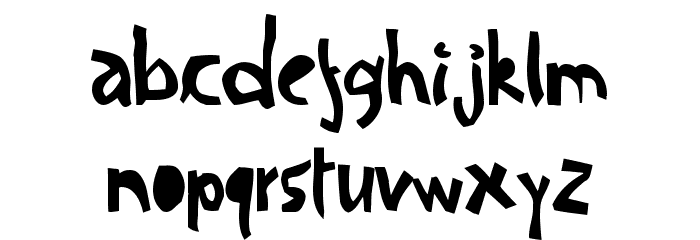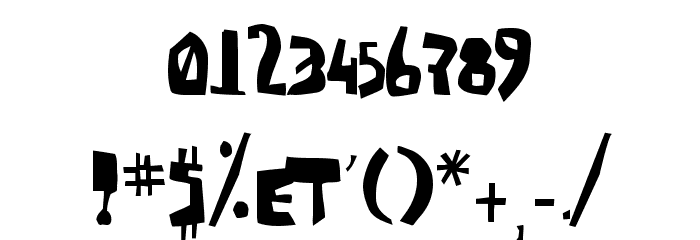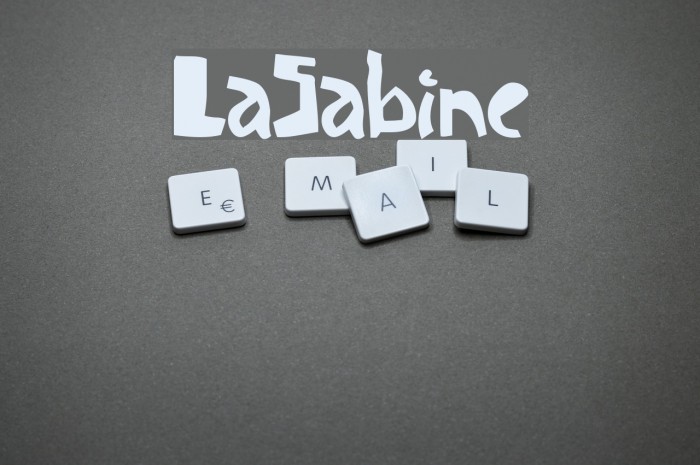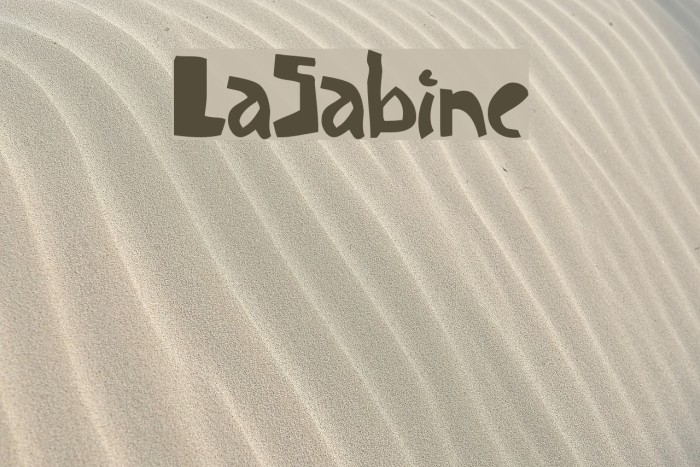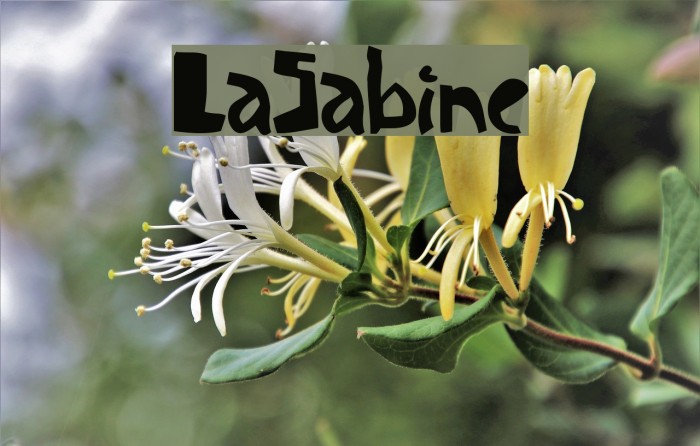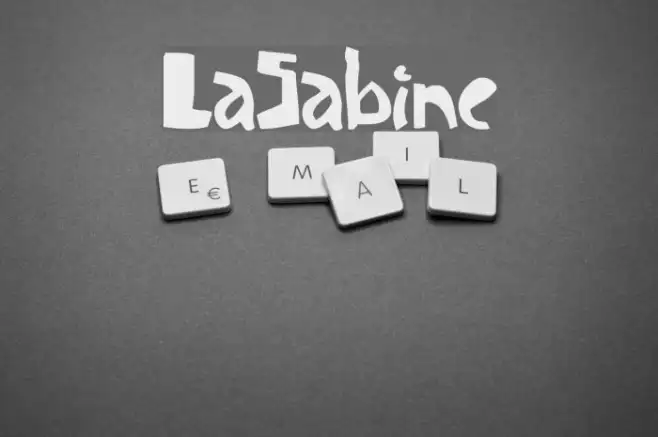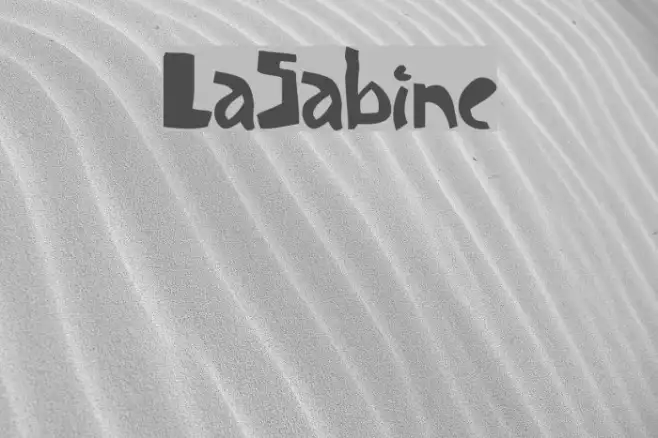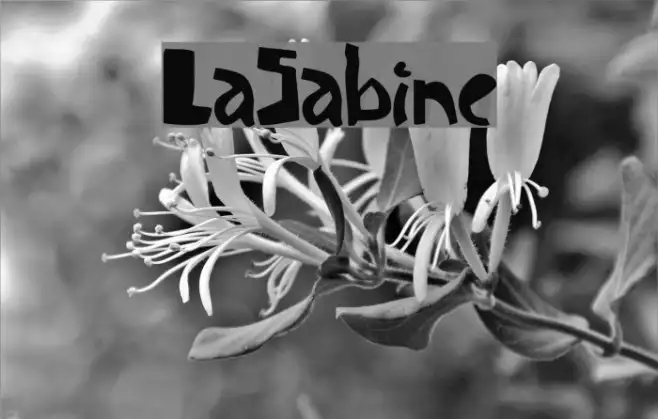
LaSabine Font
This font features a bold and playful design with a hand-drawn aesthetic. The uppercase letters are characterized by their thick, uneven strokes and slightly irregular shapes, giving them a whimsical and dynamic appearance. The lowercase letters maintain this playful style, with a slightly more fluid and organic form. The numerals and special characters follow suit, offering a cohesive look across all glyphs. The overall style is reminiscent of a casual, artistic expression, making it ideal for creative and informal applications. The font's unique character is further enhanced by its medium contrast in stroke thickness, adding to its visual interest.